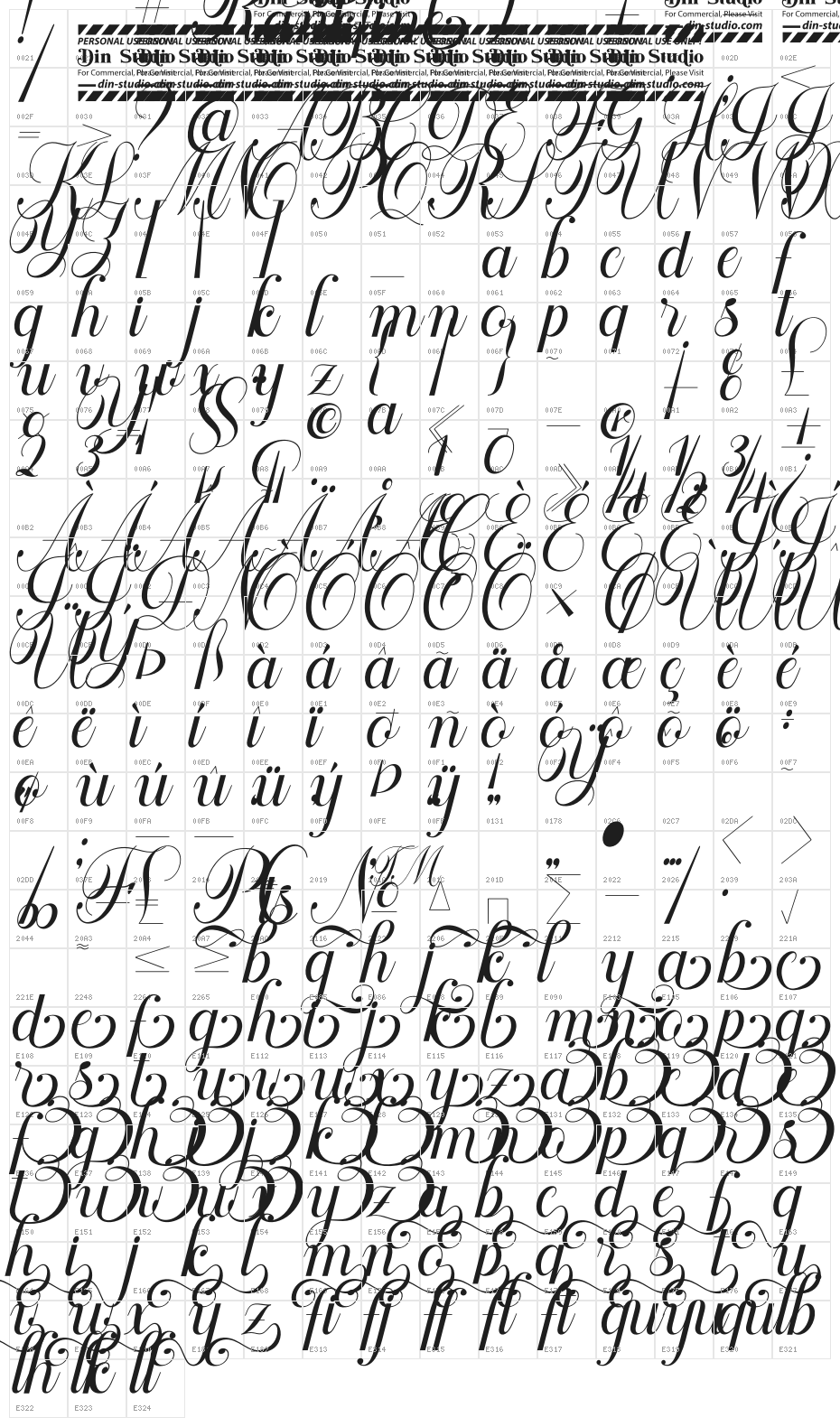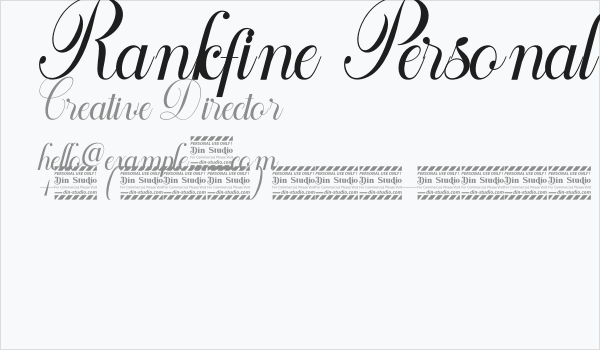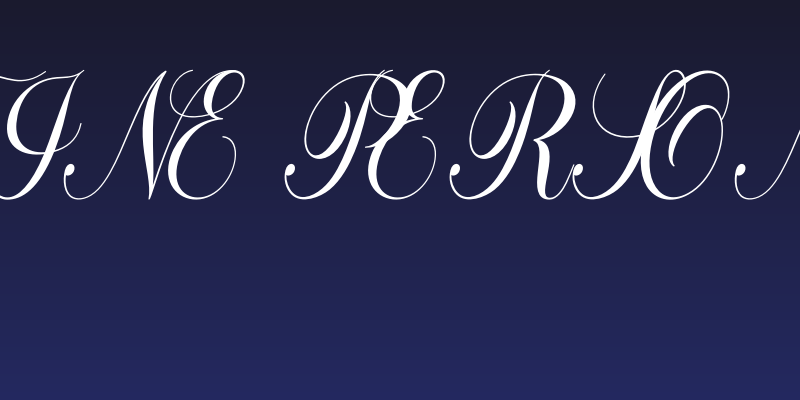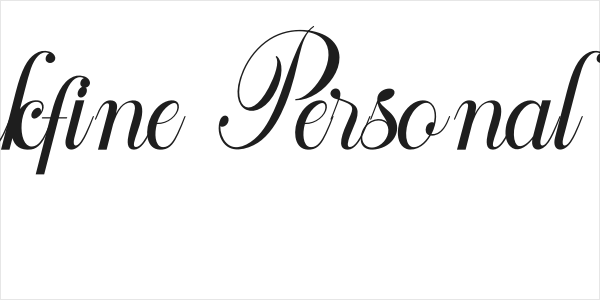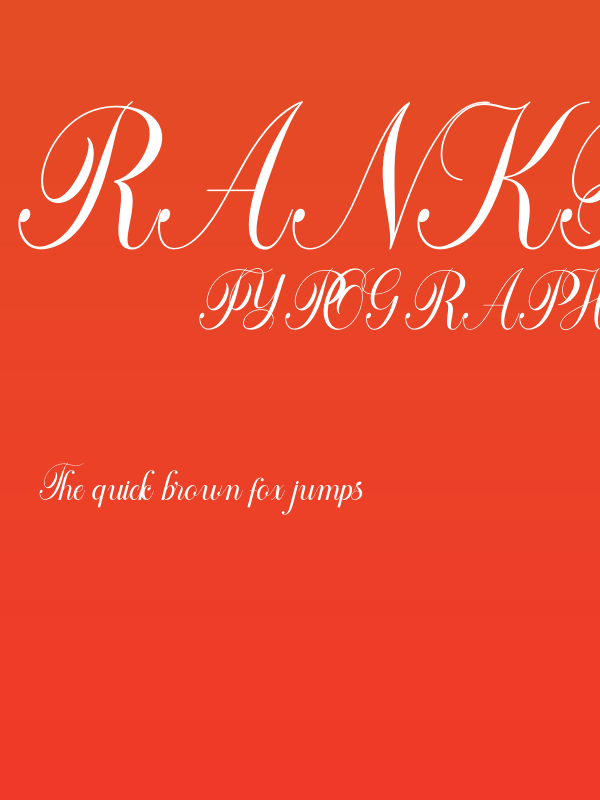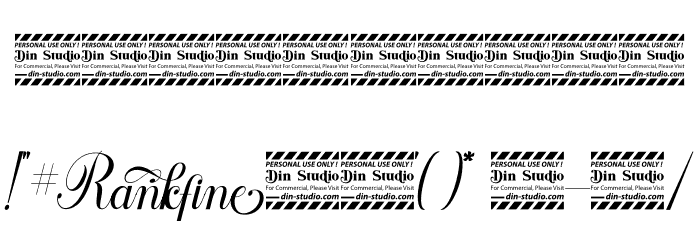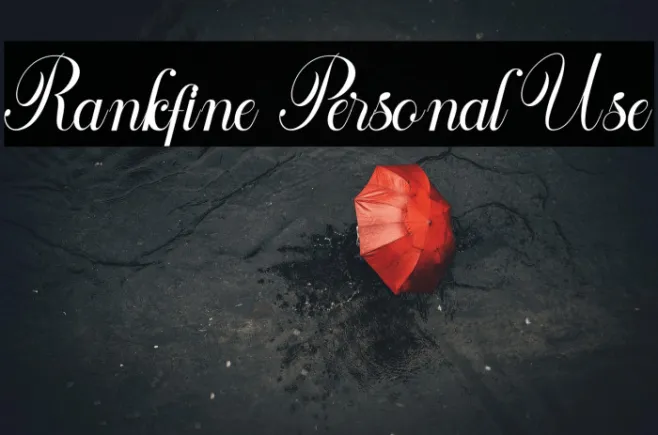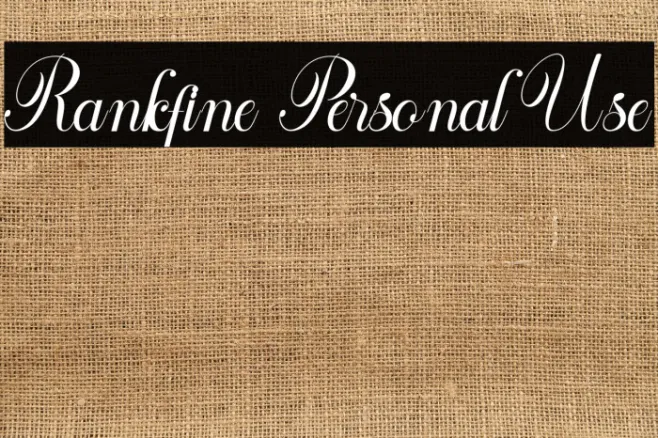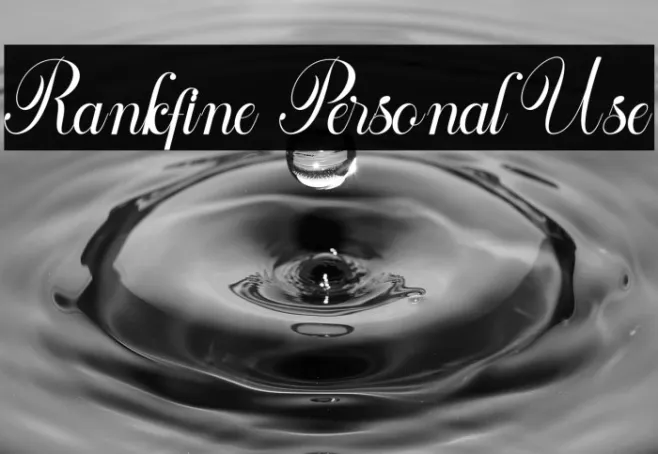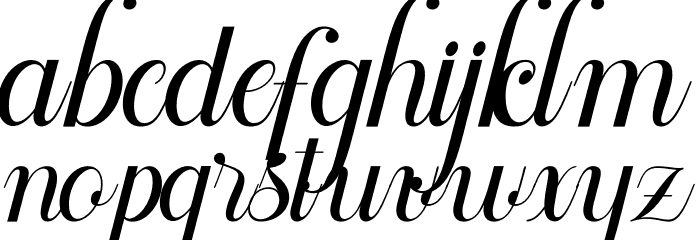
Rankfine Personal Use Font
Rankfine Personal Use Description
This font embodies a sophisticated and elegant script style, characterized by its flowing, cursive letterforms. The uppercase letters are particularly ornate, with intricate loops and flourishes that add a touch of luxury and refinement. The lowercase letters maintain a consistent slant, enhancing the script's fluidity and grace. The numerals and special characters are designed with the same attention to detail, ensuring a cohesive look across all glyphs. This font's high contrast between thick and thin strokes adds to its dramatic and stylish appearance, making it ideal for projects that require a touch of elegance and sophistication.
| Proposed Projects | Ideal for wedding invitations, luxury branding, elegant packaging, and high-end editorial design. |